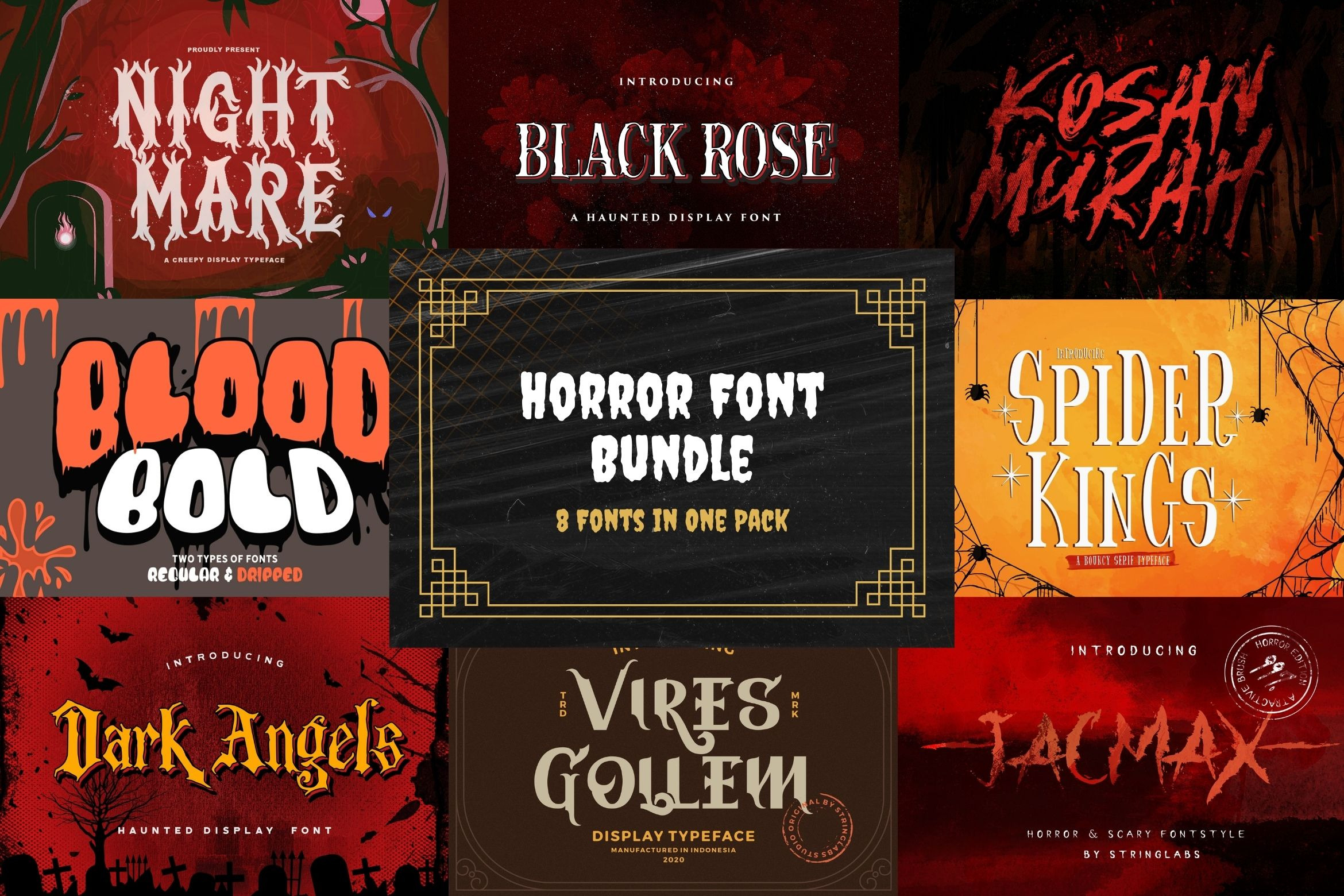
Introducing Horror Font Bundle. This font bundle contains 8 high quality horror, decorative, scary, and gothic fonts with unique variation styles. The Horror Font is perfect for your horror projects, such as: Movie Poster, Lettering on Cover Books, Album music cover, Logo Brand, and much more.
FONTS INCLUDED :
- Nightmare
- Jacmax
- Spider King
- Kosan Murah
- Dark Angels
- Black Rose
- Vires Gollem
- Blood Bold